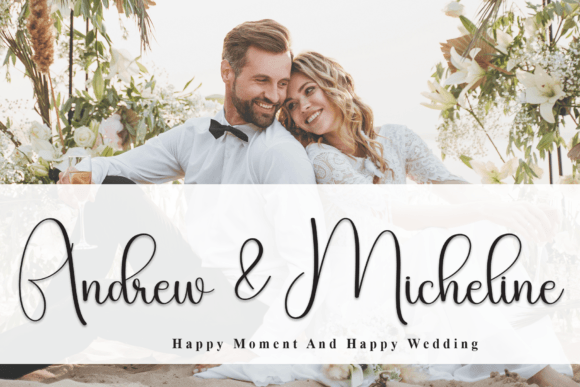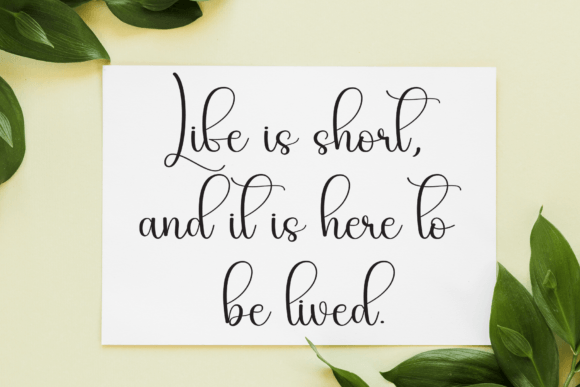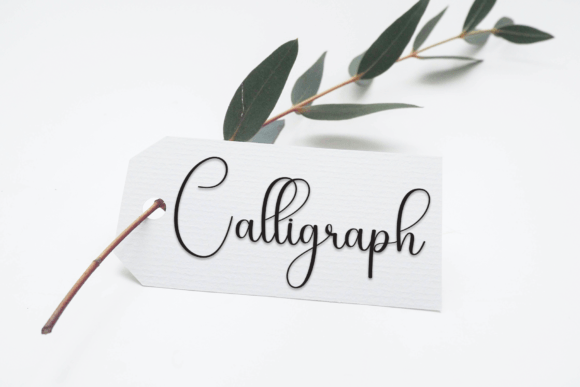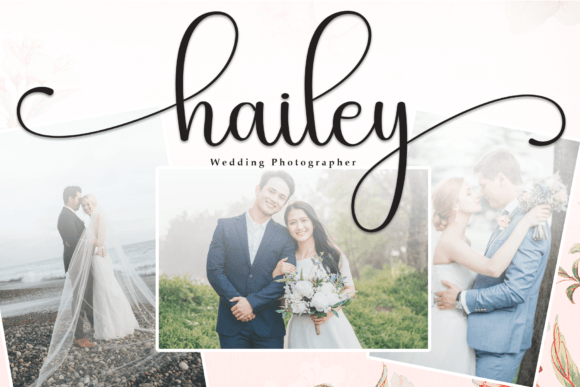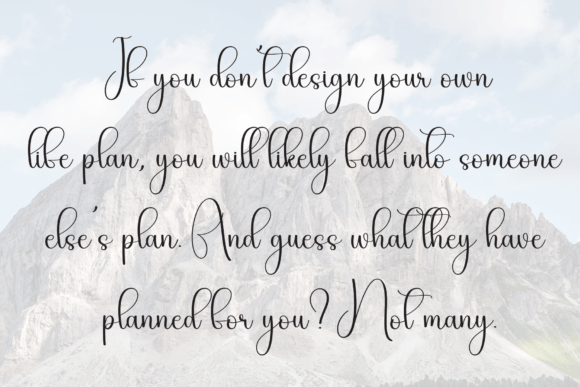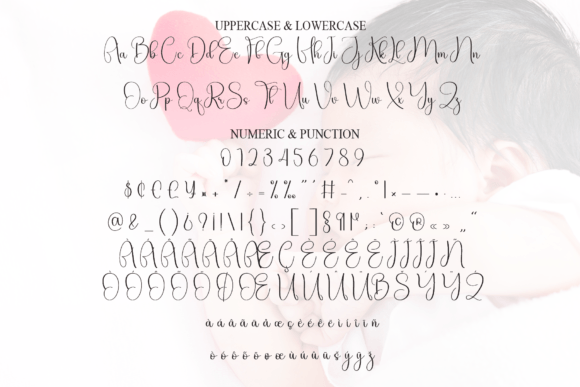
Discover the Timeless Charm of Baby Lovely Font
Do you remember the feeling of flipping through a vintage book or scrolling through an antique store, and suddenly, a beautiful handwritten script catches your eye? The elegance and sophistication of it all leave you in awe, and you can’t help but feel inspired to create something special.
For designers and creatives, finding the perfect font can be a game-changer. That’s why we’re excited to introduce the Baby Lovely Font, a beautiful handwritten script font that’s perfect for creating stunning wall art, posters, and prints. This elegant font is not only visually appealing but also adds a touch of sophistication to any home decor item.
With the Baby Lovely Font, designers can add a personal touch to their projects, making them truly unique and special. Whether you’re working on a custom invitation, a nursery wall art, or a home decor item, this font is sure to impress.
Baby Lovely Font Key Features
- Unique Characteristics: Hand-drawn design, cursive and script styles, and a playful, childlike feel
Baby Lovely Font Review
As a designer, I was excited to dive into the Baby Lovely Font and see what it had to offer. Overall, I was pleasantly surprised by the charm and whimsy of this font.
What works well: ✨ This font is perfect for projects that require a soft, feminine touch. The curves are smooth and the letterforms are well-spaced, making it easy to read. I love the playful feel of the font, which is ideal for children’s books, nursery decor, or other projects that aim to be cute and endearing.
What doesn’t work so well: ⚠️ While I appreciate the font’s unique character, I do think it’s limited in its versatility. The font is best suited for projects with a pastel color scheme and a sweet, innocent vibe. If you’re looking for a font that can adapt to a wide range of styles, Baby Lovely may not be the best choice.
- Perfect for children’s projects or projects with a soft, feminine touch
- Smooth curves and well-spaced letterforms make it easy to read
- Unique character and playful feel
- Limited versatility
Overall, I think Baby Lovely is a great choice for projects that require a touch of sweetness and innocence. While it may not be the most versatile font, it’s sure to add a charming touch to any design.
Tips for Getting the Most Out of Baby Lovely Font
Use the Baby Lovely Font in combination with other playful fonts to create a unique and eye-catching design.
Experiment with different font sizes and styles to add visual interest to your designs.
Use the Baby Lovely Font to add a touch of whimsy and personality to your designs.
Common Use Cases for Baby Lovely Font
Baby Lovely Font is perfect for designing:
Invitations, party decorations, and social media graphics.